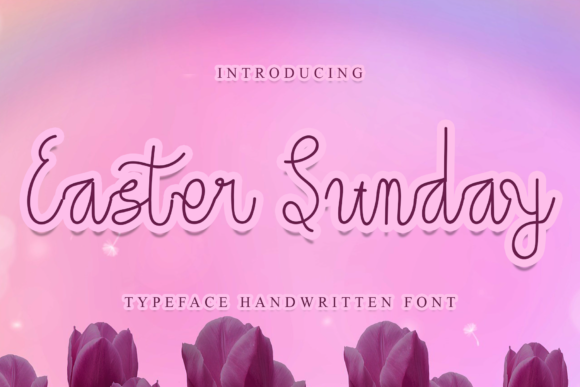
Spring into Style with the Easter Sunday Font
There’s nothing quite like the thrill of creating something new and beautiful. It’s the moment when all the pieces fall into place, and you know you’ve made something special. For designers, this feeling is what drives us to keep pushing the boundaries of creativity. Whether it’s a fashion brand or an editorial design, the right font can make all the difference.
That’s where the Easter Sunday Font comes in – a modern handwritten font that exudes elegance and sophistication. With its smooth characters and thin lines, it’s the perfect addition to any project that needs a touch of style. And the best part? It’s incredibly readable, making it a valuable asset for designers who want to create beautiful and effective designs.
• Font Family: Easter Sunday is a unique, hand-drawn font family designed to evoke a sense of whimsy and playfulness.
• Character Set: Includes uppercase and lowercase letters, numbers, and punctuation marks, making it suitable for a wide range of applications.
• Unique Characteristics: Features intricate details, flourishes, and ornaments, making it ideal for creating eye-catching titles, headings, and graphics.
Easter Sunday Font Review
I recently had the chance to work with the Easter Sunday Font, and I must say it’s a mixed bag. Let’s start with the good stuff ✨.
• Unique Character**: The Easter Sunday Font has a distinct, playful character that’s perfect for adding a touch of whimsy to your designs.
• Customizable**: The font offers a range of customization options, allowing you to adjust the size, color, and spacing to fit your project’s needs.
• Fun for Children’s Content**: The Easter Sunday Font is ideal for children’s books, Easter-themed designs, and other projects that require a fun, lighthearted tone.
However, there are some limitations to consider ⚠️:
• Limited Versatility**: While the font is perfect for certain projects, it may not be the best choice for more formal or professional designs.
• Not Suitable for Small Text**: Due to its playful character, the Easter Sunday Font can be difficult to read in small text sizes, which may limit its use in certain contexts.
Overall, the Easter Sunday Font is a fun and customizable option that’s perfect for projects with a playful tone. While it may have its limitations, it’s a great choice for designers looking to add a touch of whimsy to their designs.
The Easter Sunday Font is commonly used for Easter-themed designs, such as invitations, greeting cards, and decorations. It can also be used for spring-themed designs, like floral arrangements and garden invitations.
To get the most out of the Easter Sunday Font, use it in combination with other Easter-themed graphics and colors. You can also experiment with different font sizes and styles to create a unique look.